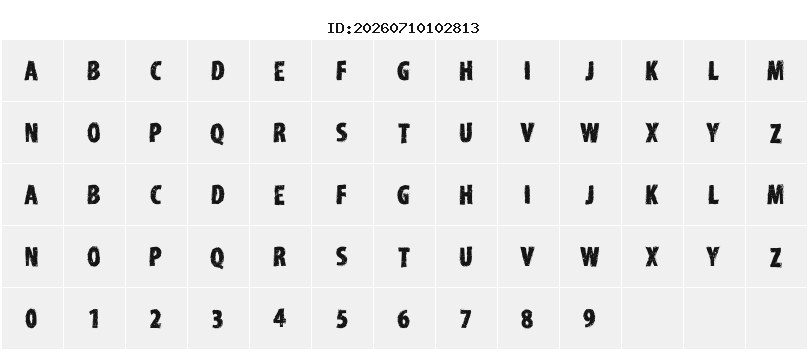
• Font Name: Edirne Normal
• Full Font Name: Edirne Normal
• Designer: Iordanis Passas
About Edirne Normal.otf
Edirne Normal.otf is a modern, elegant sans-serif font designed for ultimate readability and visual harmony. Perfect for branding, headlines, web design, and print materials.